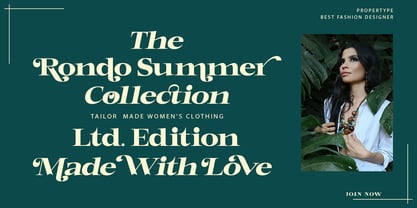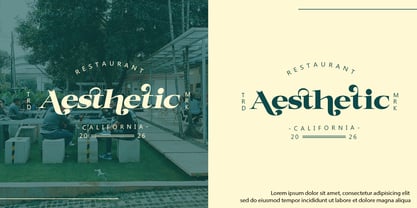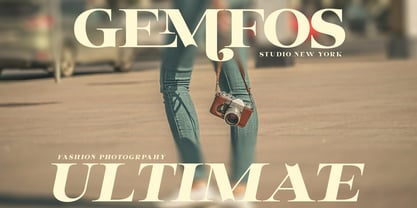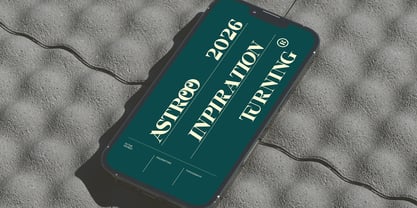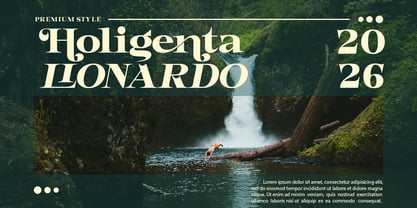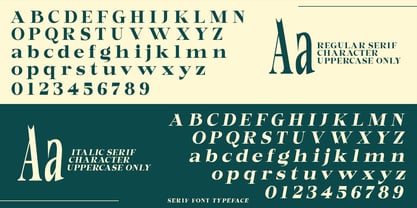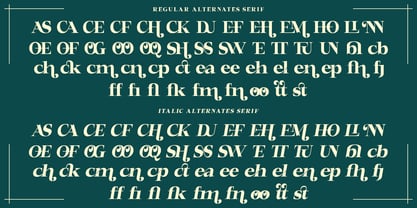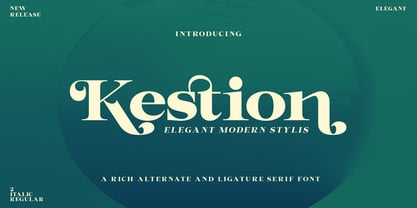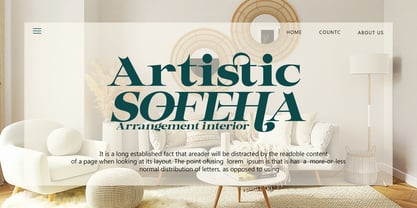
Kestion
by Gatype
The Kestion Font Family was designed by khaidir and published by Gatype. Kestion contains 2 styles and family package options. More about this family
Kestion is a modern vintage serif font packed in a modern and classy style, complete with access to your OpenType features to access a wide selection of alternate letters and ligatures, a choice of letters you like from uppercase and lowercase to get a luxurious and elegant look.
Designers: khaidir
Foundry: Gatype